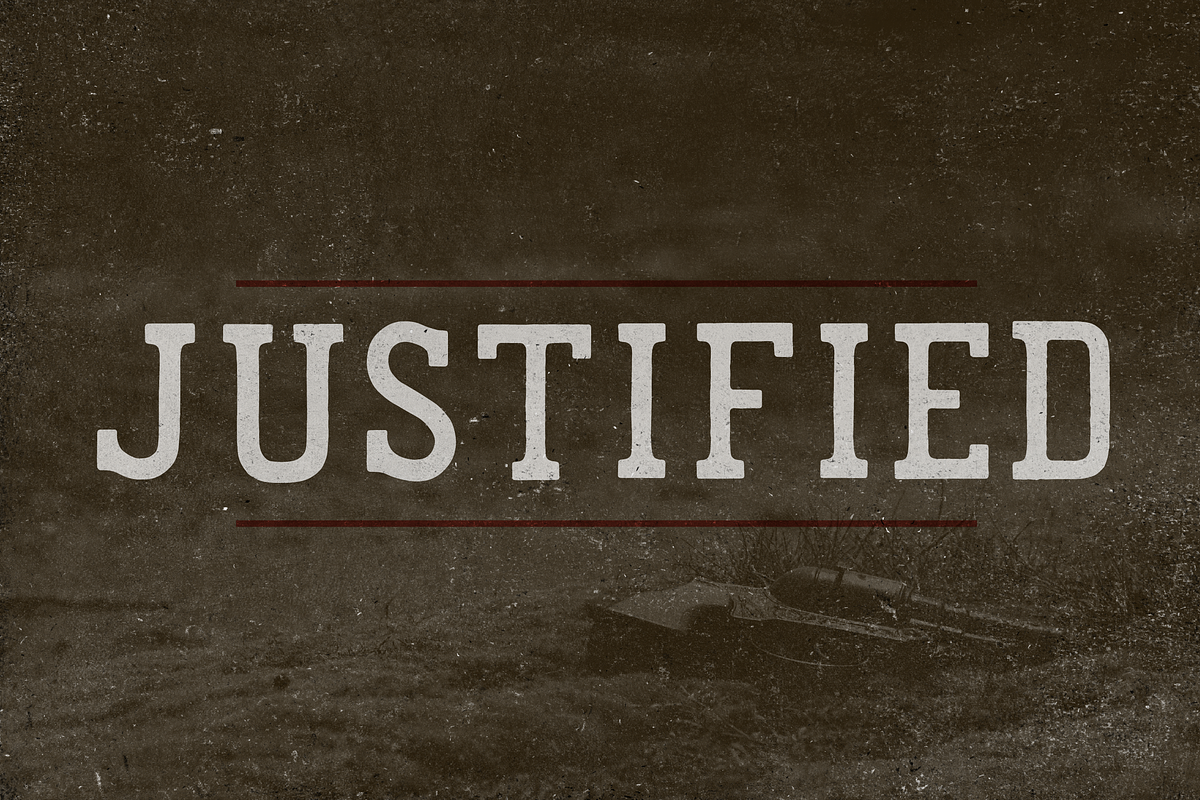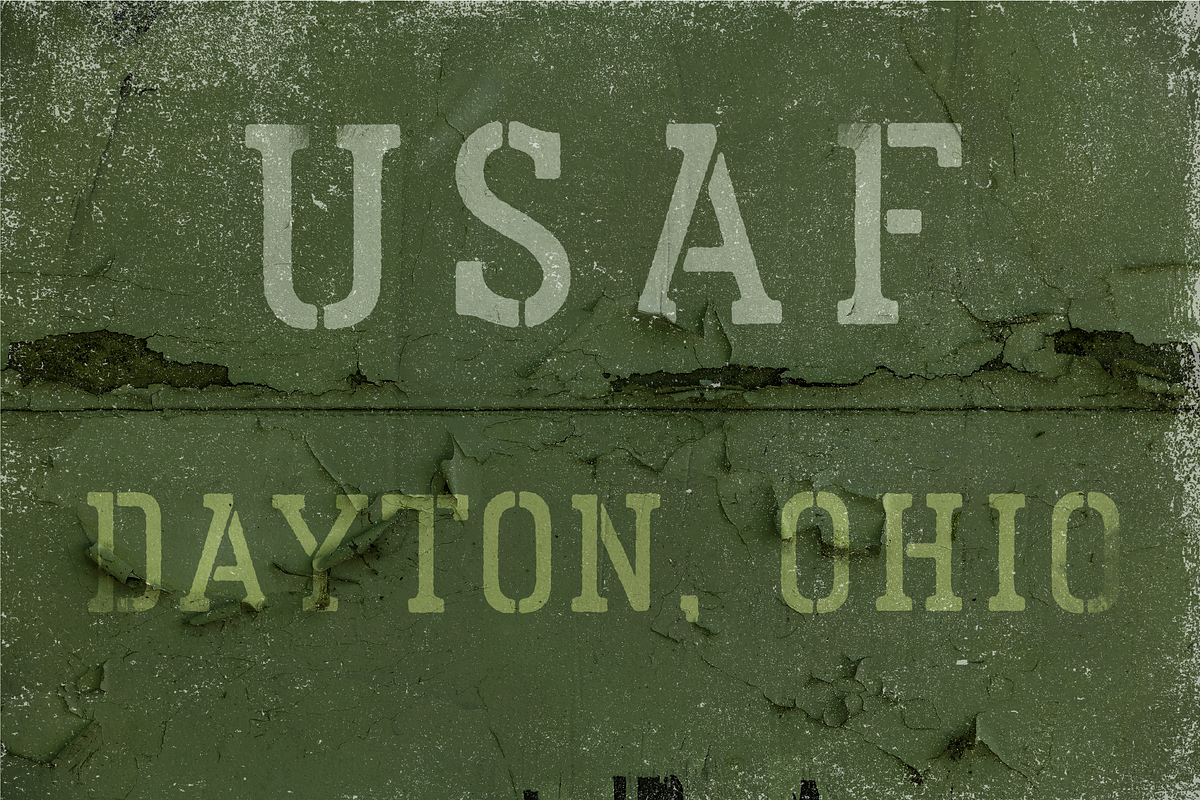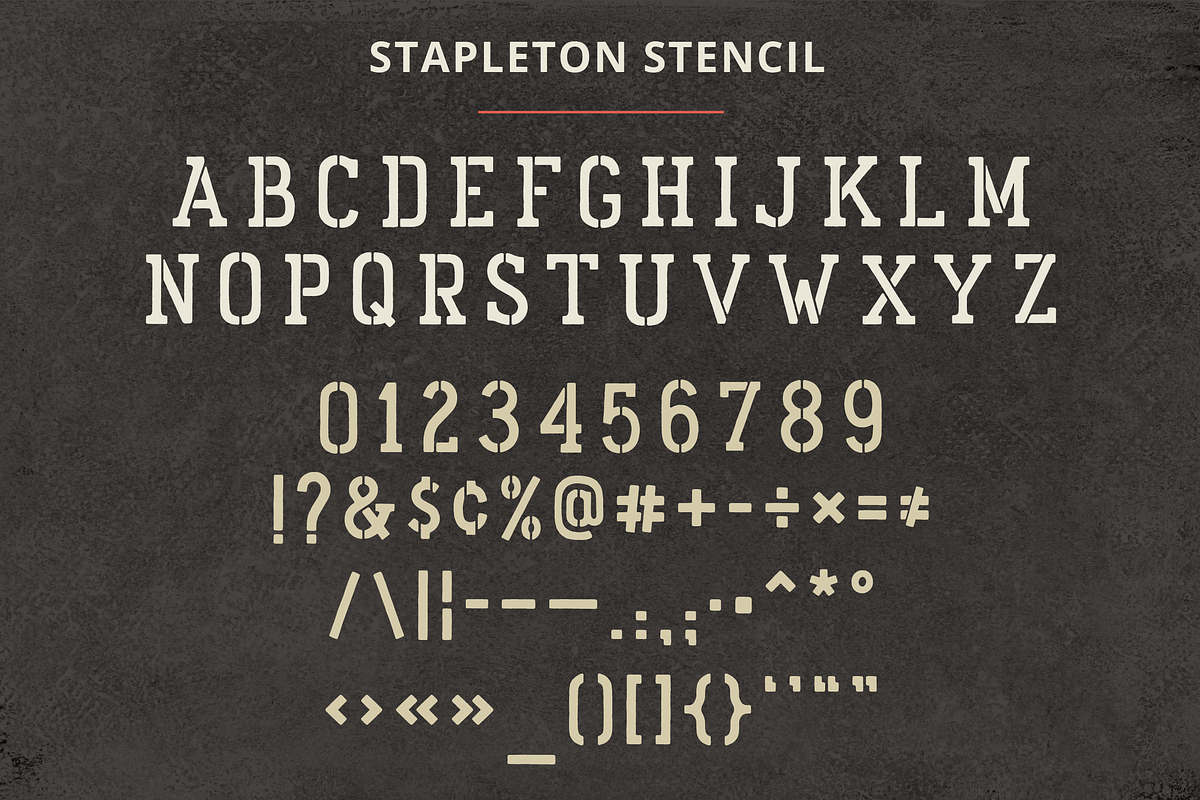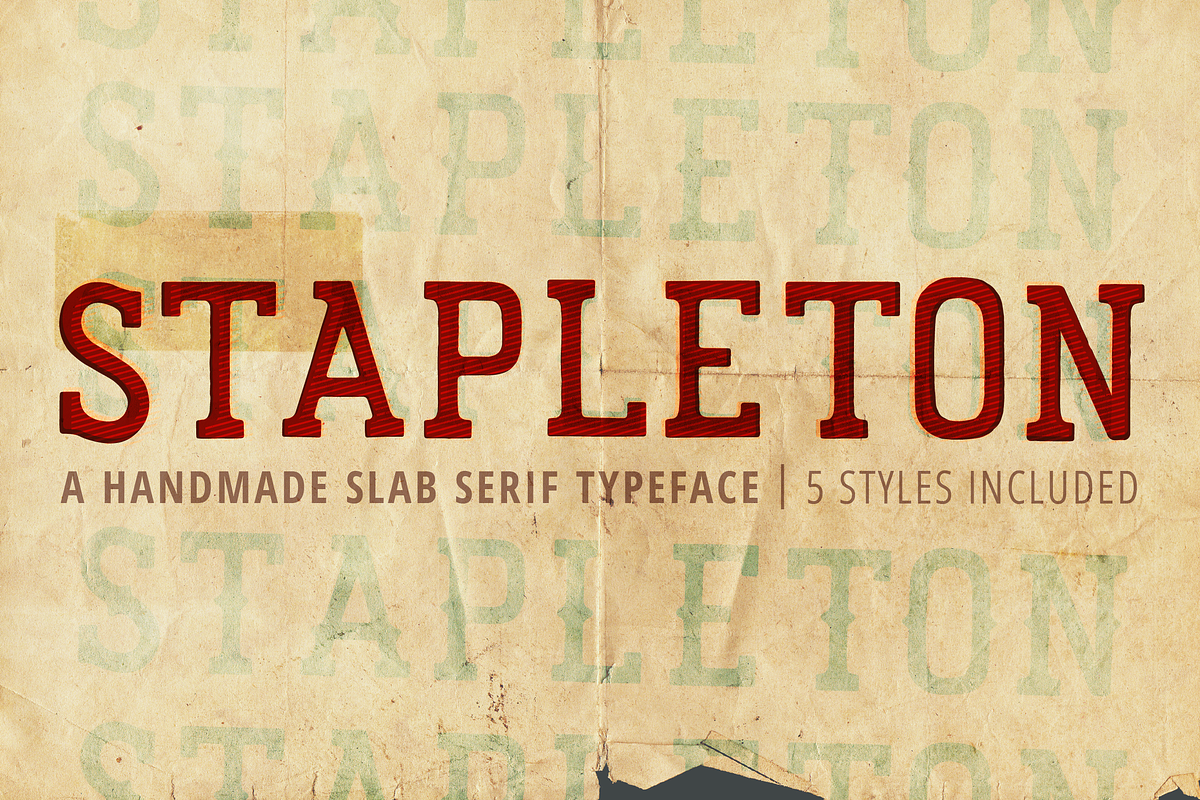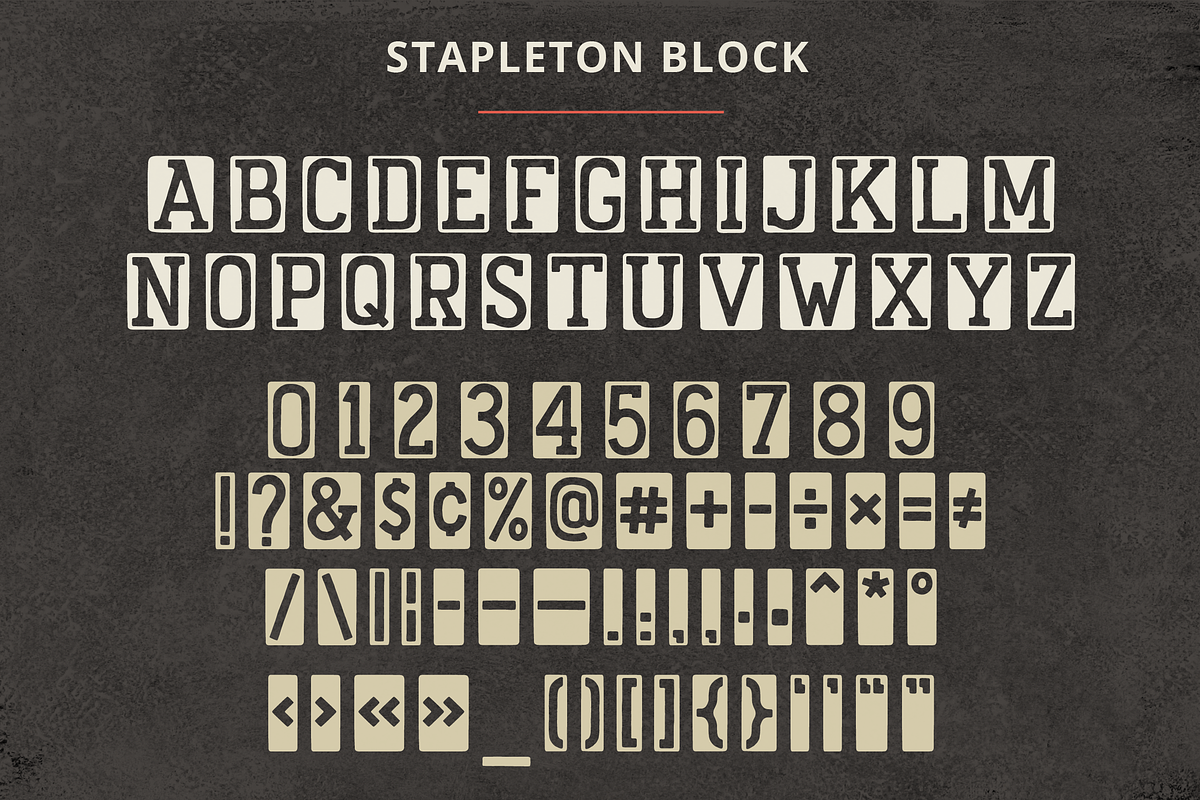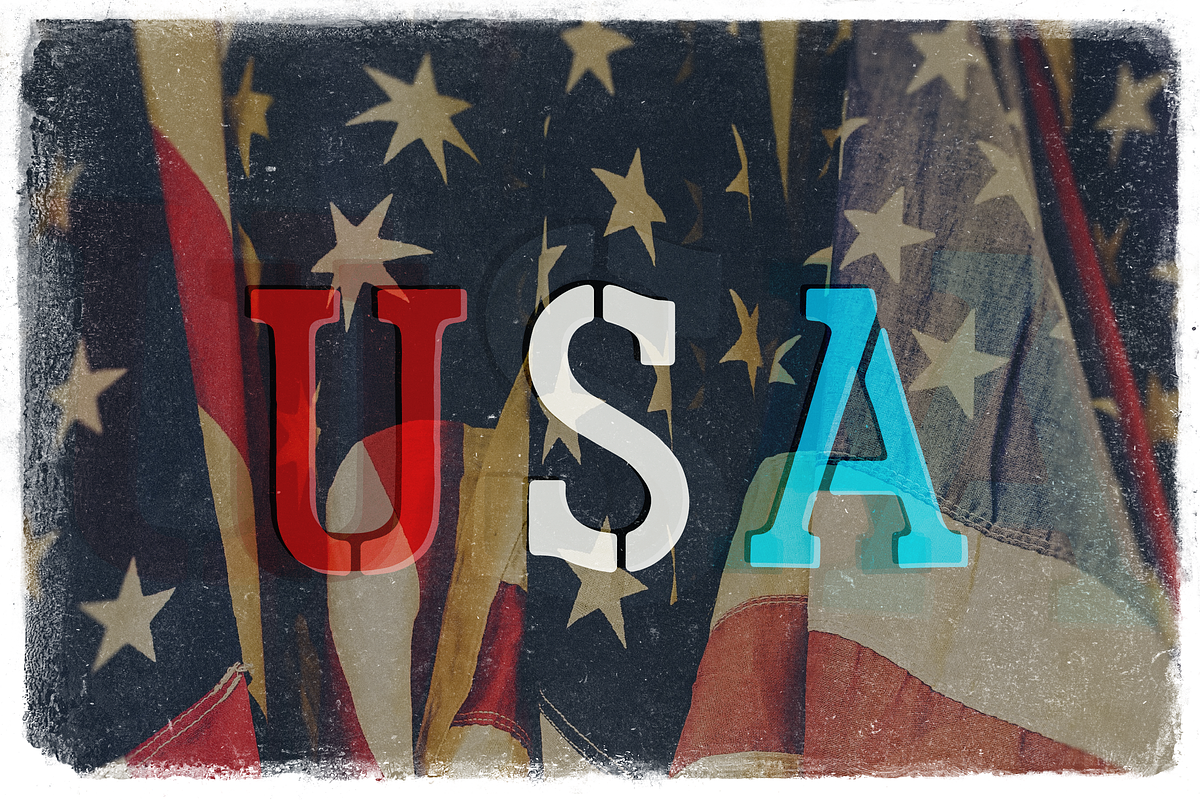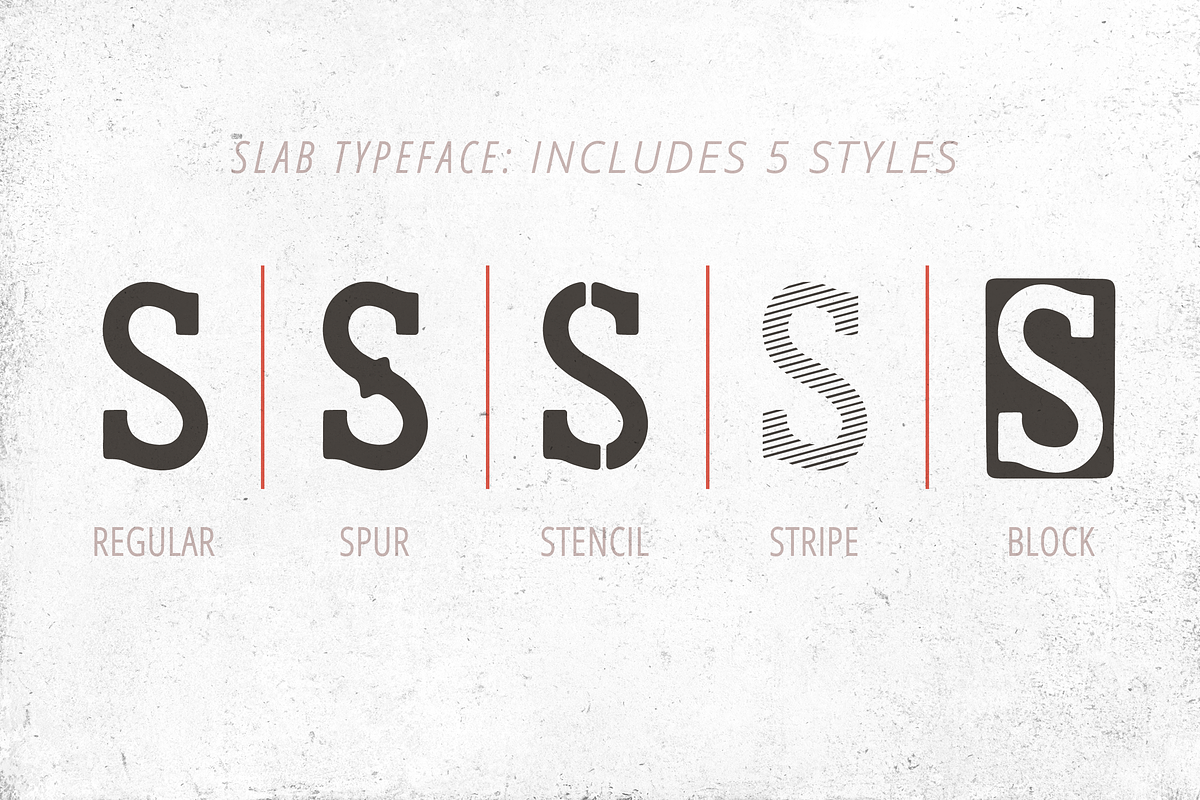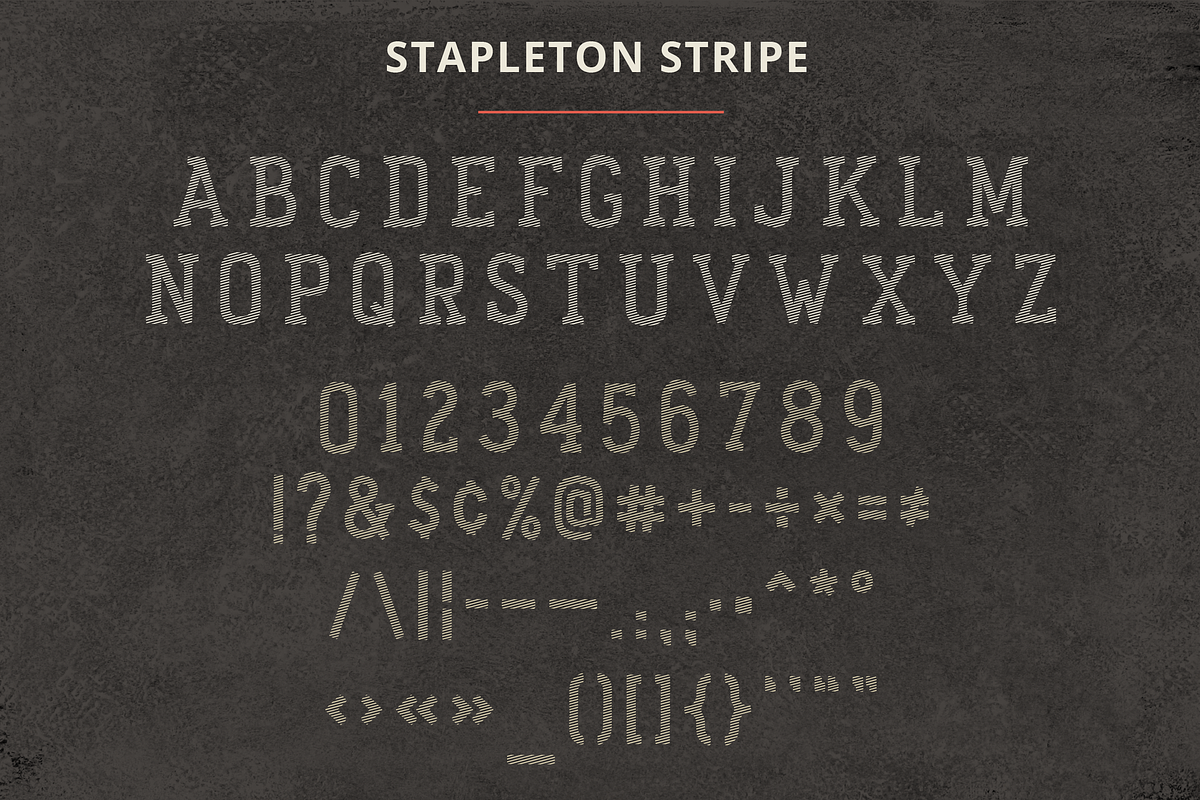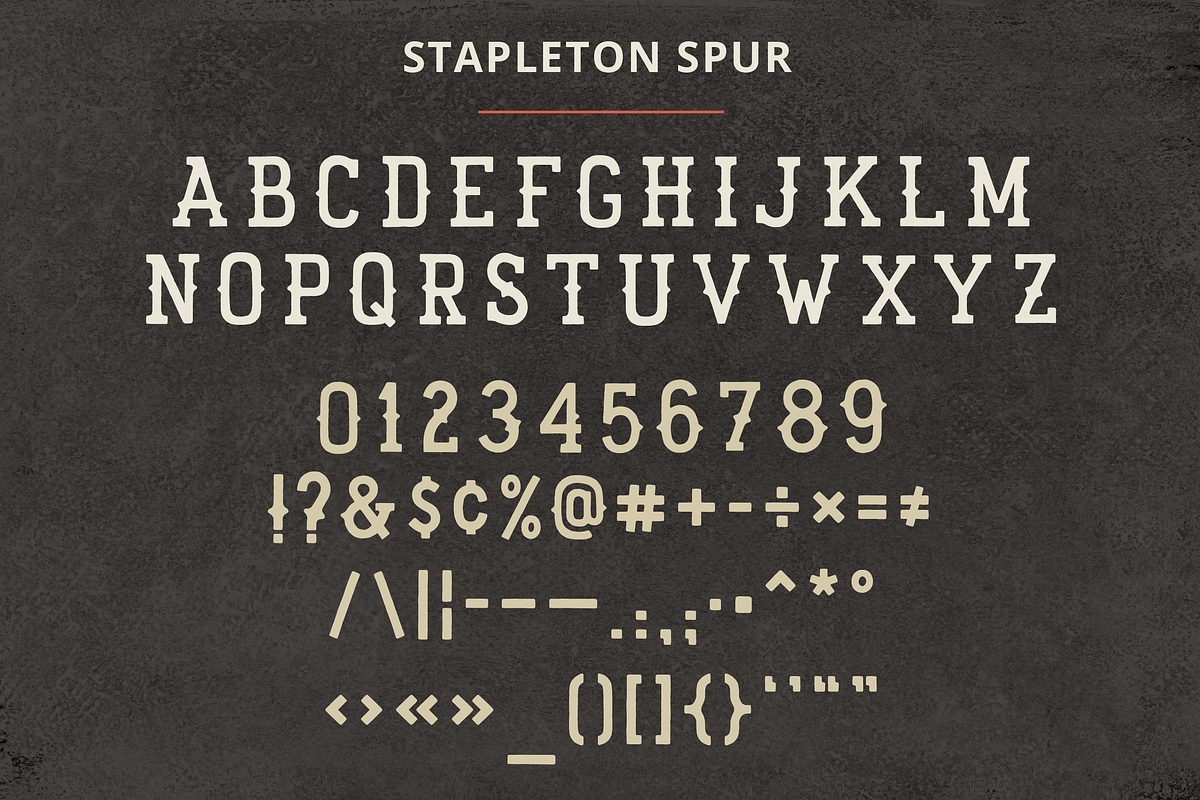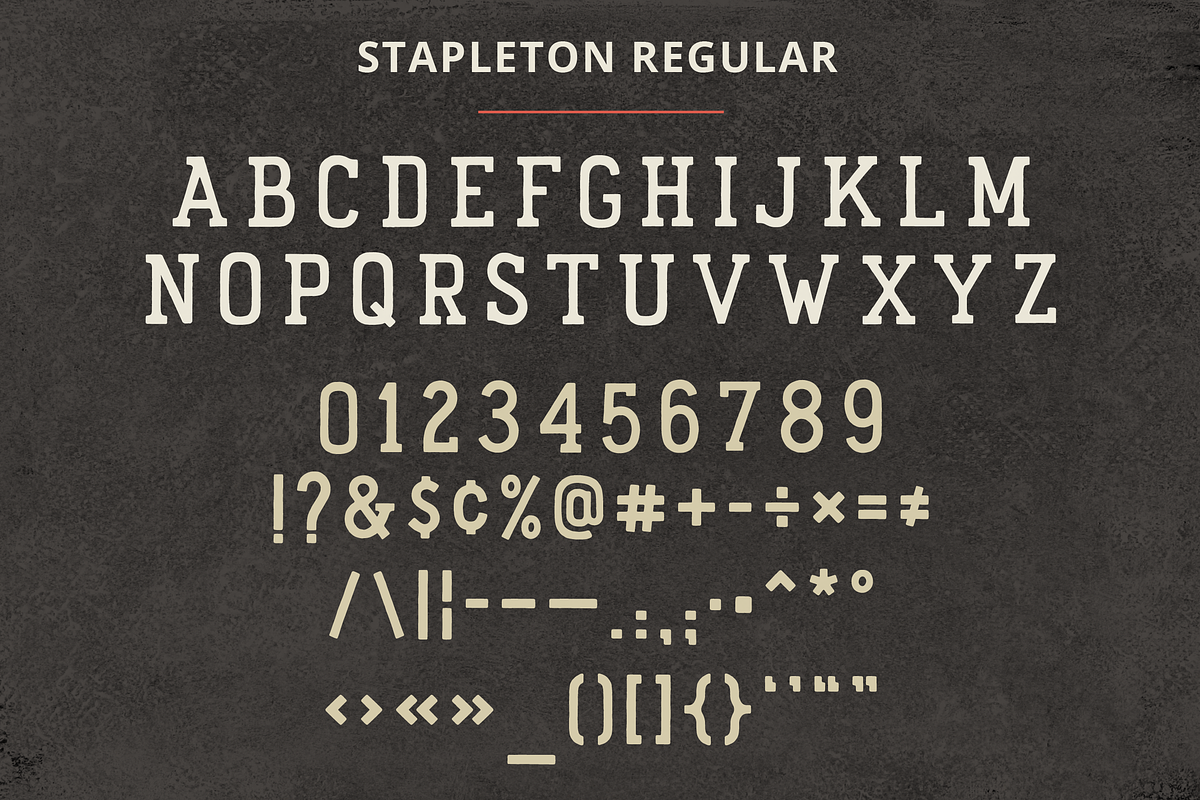
Stapleton
Stapleton is a display-oriented slab serif typeface. While it is bold enough to grab a viewer's attention, it also manages to maintain legibility at smaller sizes. The five included styles make Stapleton an extremely versatile type family! Try stacking them to create even more styles!
The complete family pack includes 5 Open Type styles: Regular, Spur, Stencil, Stripe, Block